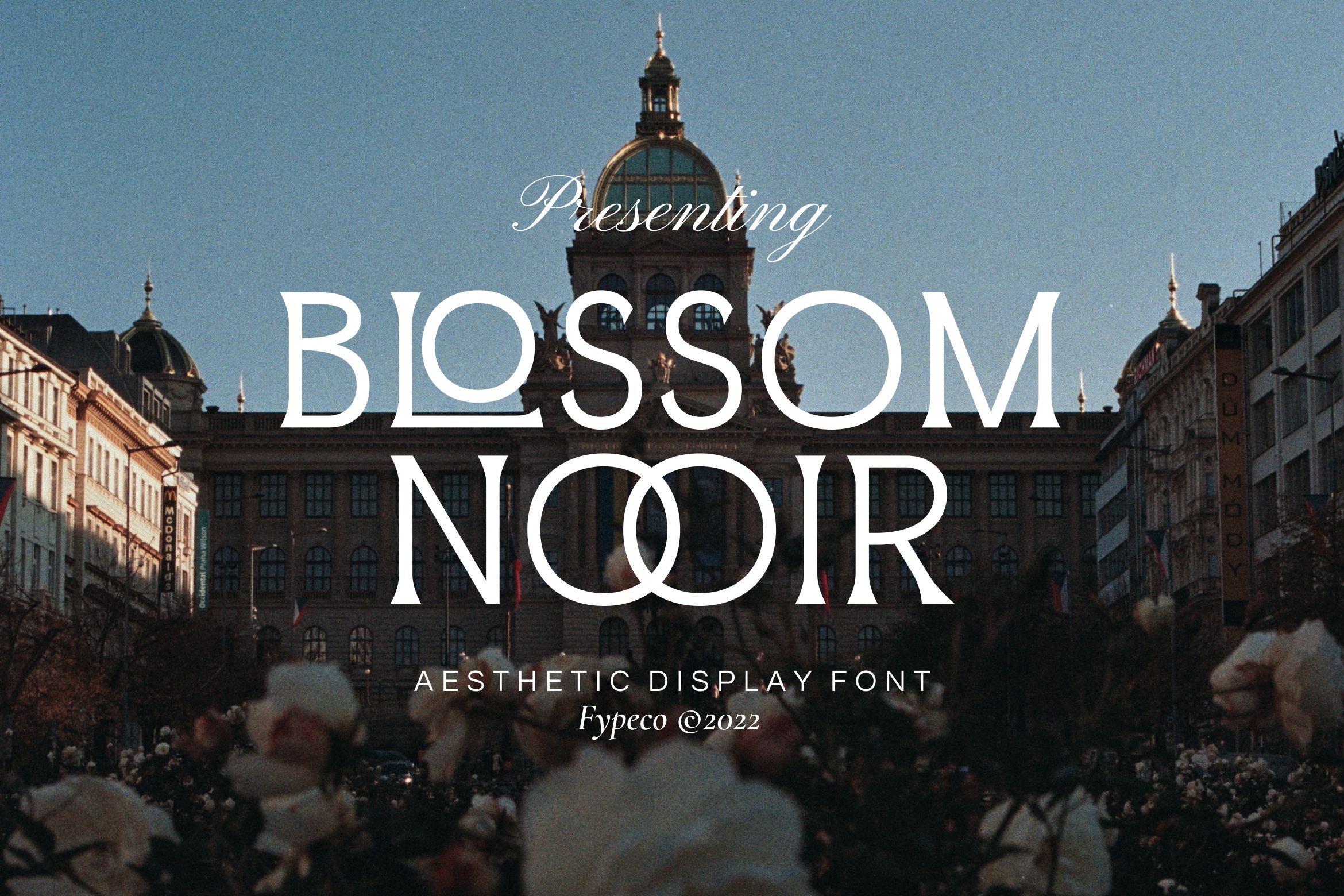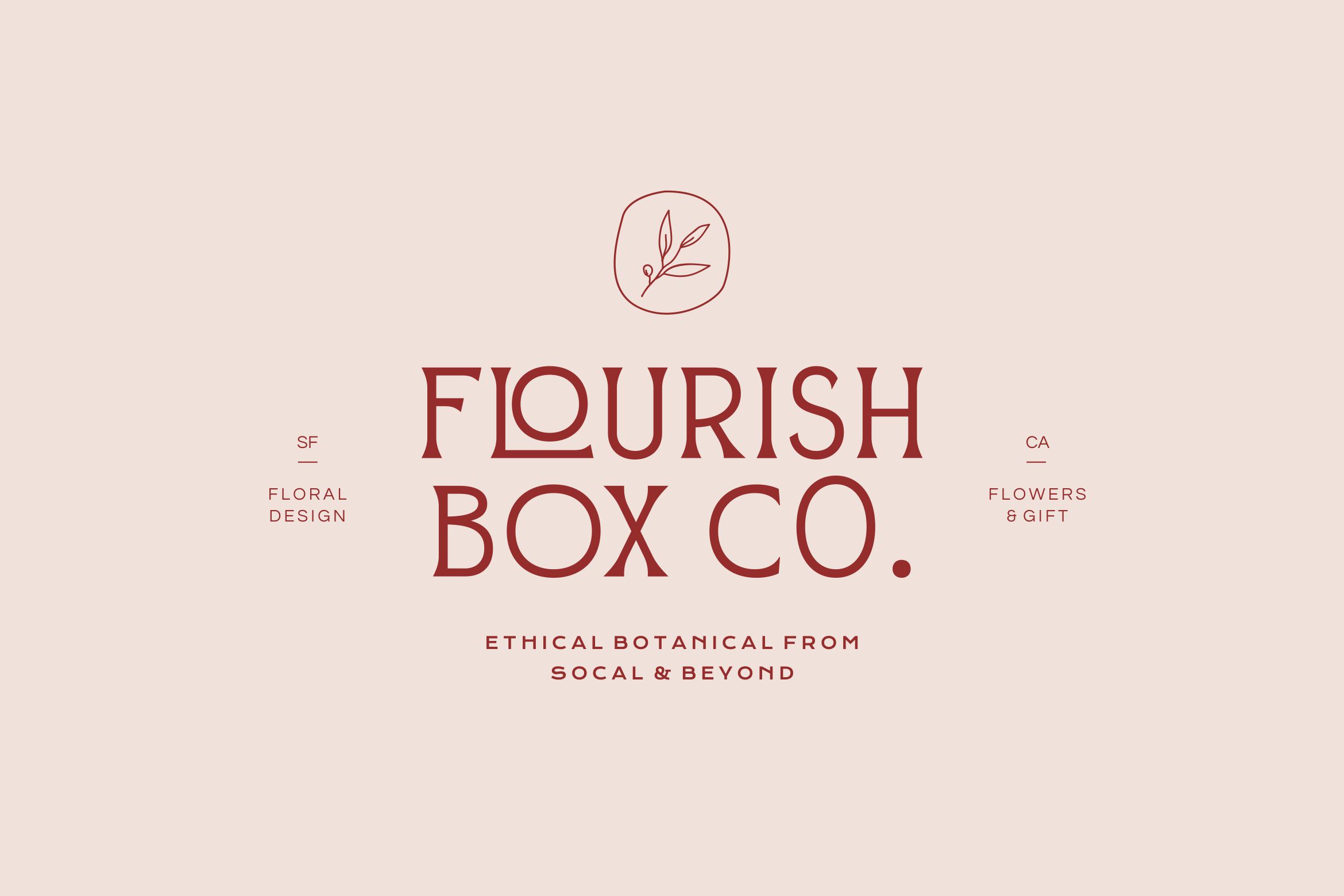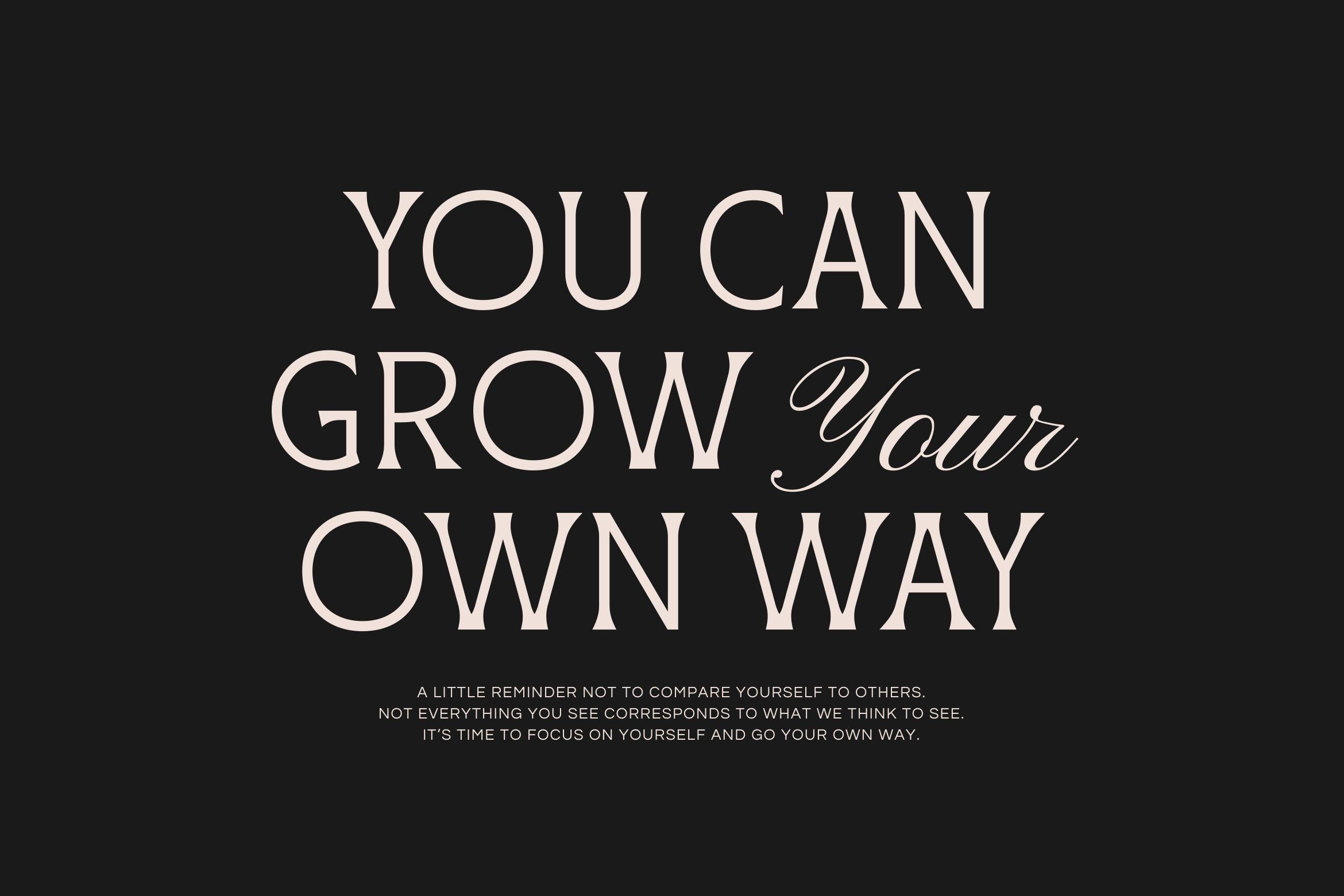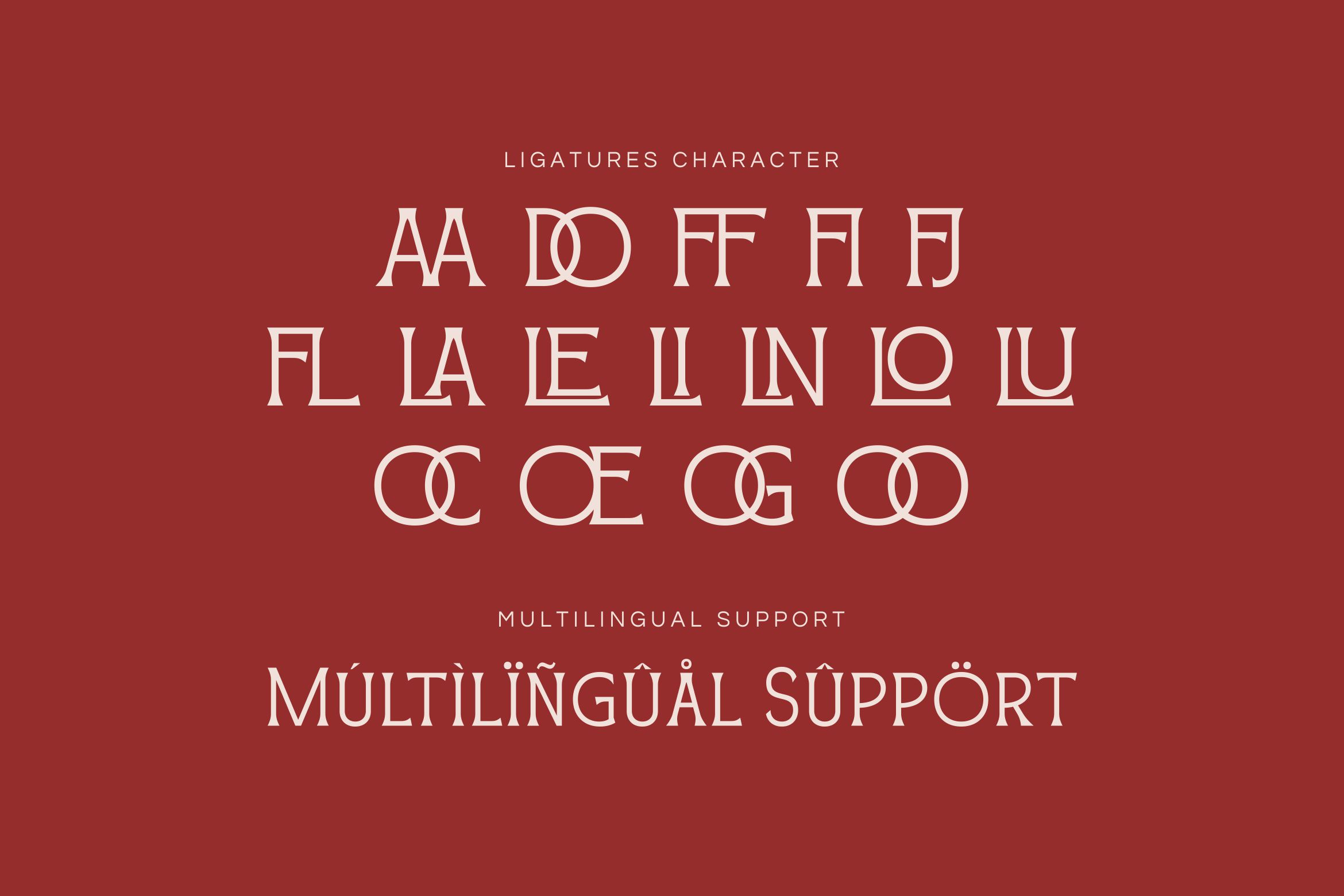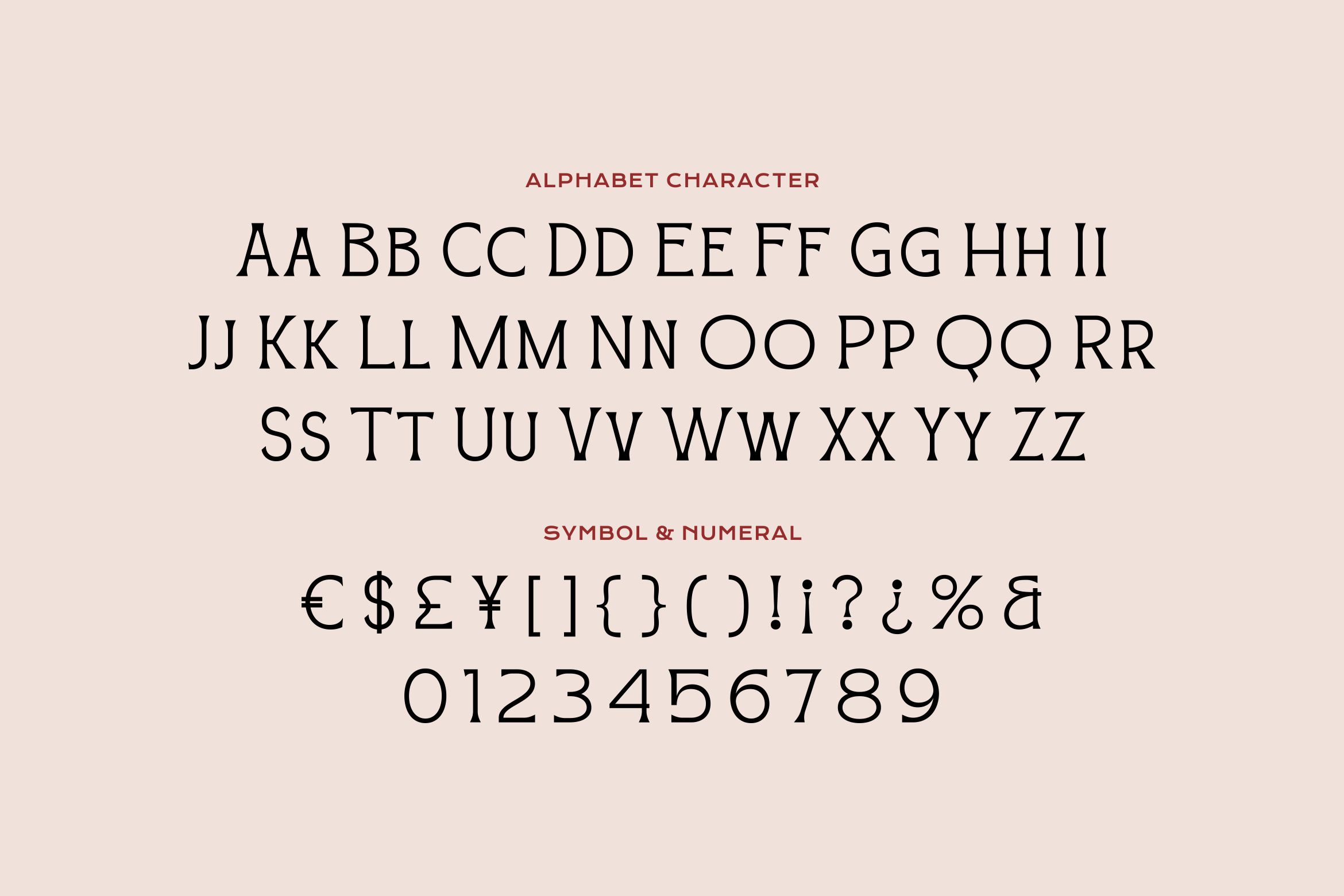
This font blends classic serif elegance with a fresh, contemporary twist, making it the perfect choice for designers who want to create work that feels both refined and unique. Its graceful letterforms are complemented by creative ligatures and stylish alternates, offering endless design possibilities. Whether used for branding, editorial layouts, logos, or event invitations, this typeface delivers sophistication with a distinctive personality.
Featuring complete uppercase and lowercase letters, numbers, punctuation, and multilingual support, this font is as versatile as it is beautiful. The carefully crafted ligatures add a touch of artistry, while the strong yet elegant serifs ensure readability and impact. Perfect for fashion branding, high-end packaging, posters, or any project that demands a statement piece, this font is your go-to for creating designs that turn heads.
Blossom Nooir